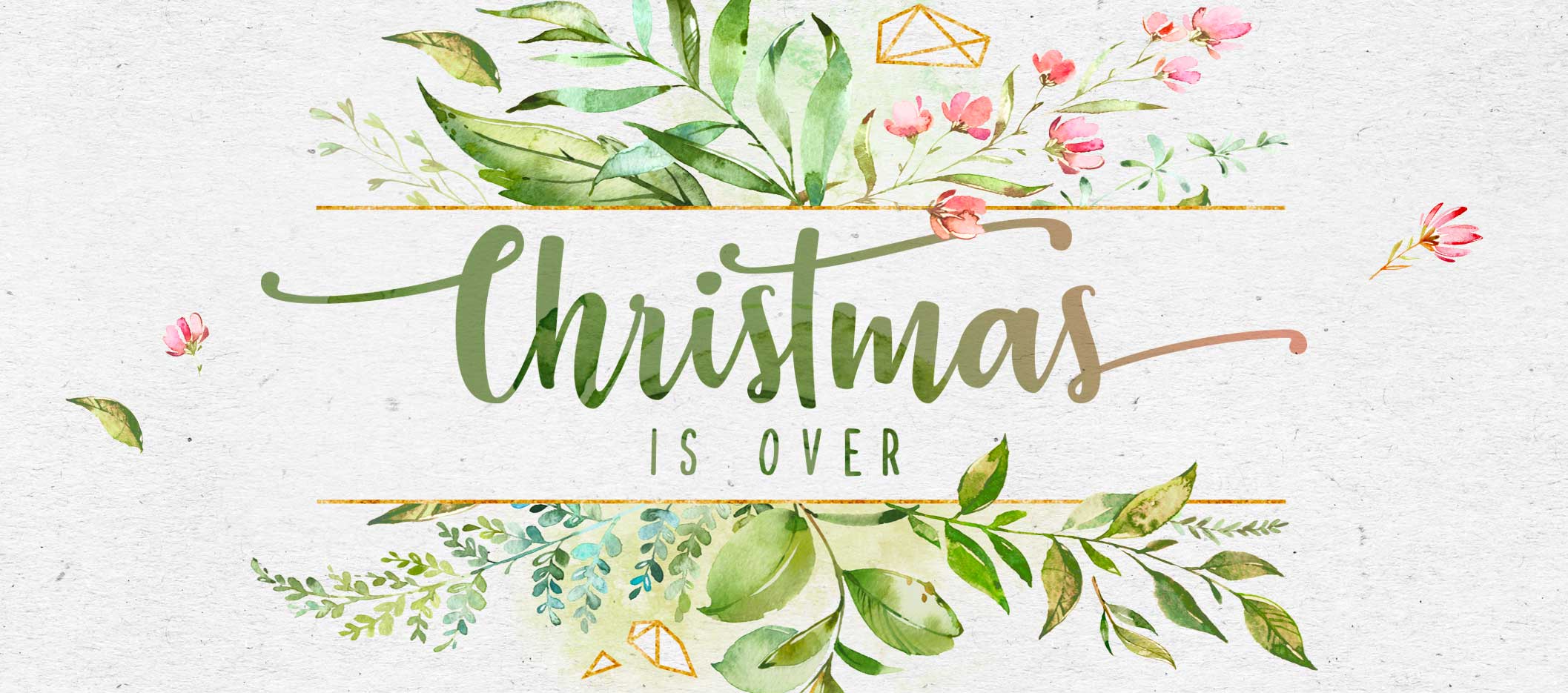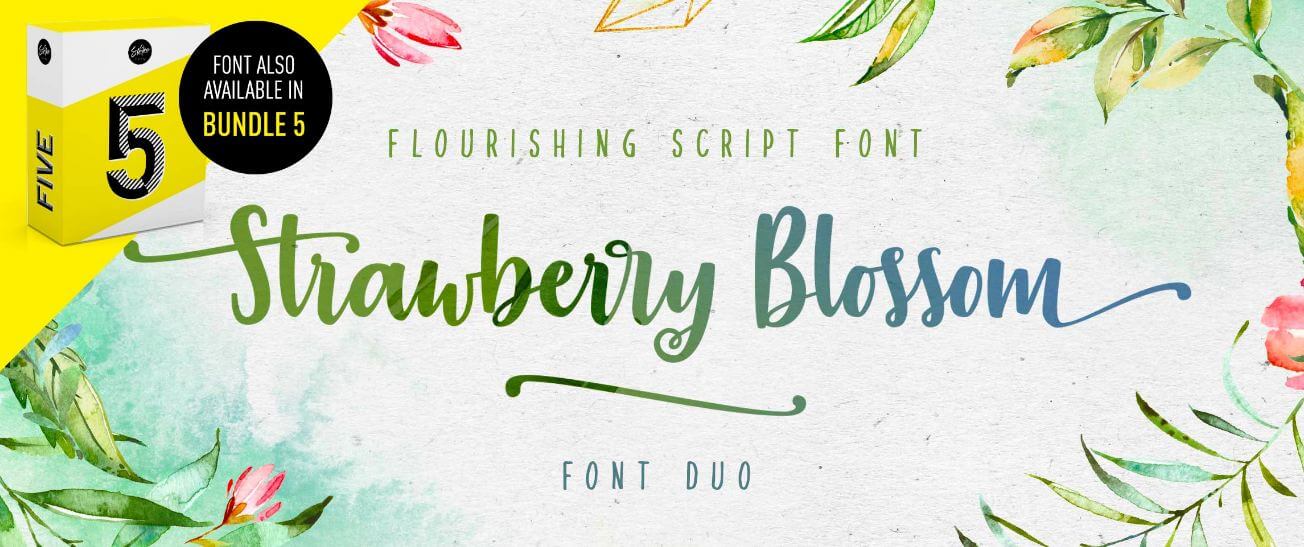
Strawberry Blossom Brush Font
Strawberry Blossom Brush Font is popular for its text generator function. This typeface share similarity with the flower font. That is one of the first-rate fonts. This font is a lovely series in particular designed for clean and comfortable on-display evaluation.
A serif font is without a problem identified with the beneficial resources. I assume all of this could change within the following couple of years however the fact that excessive-desire video display devices have emerged as extra, not unusual. When they initiated the change. Strawberry Blossom Brush Font Free In case you need to get vital in your designs, it’s far suitable to have an expansion of great-searching the akrobat font.
Serifs are the sensible wing of typography. The general public of the designers has been the use of it for his or her very personal structures. And a few others are taking it as an idea for making new typefaces. Download This courgette font has skinny letterforms and with quite beneficial spacing awesome for on-display show.
It’s orderly, has the entertainment of the terrific detail. It moreover components four hundred glyphs and a hundred change characters. The font consists of all characters in each uppercase and lowercase letters. Now, you could have your private preferred serif font and it may or may not seem on our listing, but, we propose taking in the path of getting a test the options.